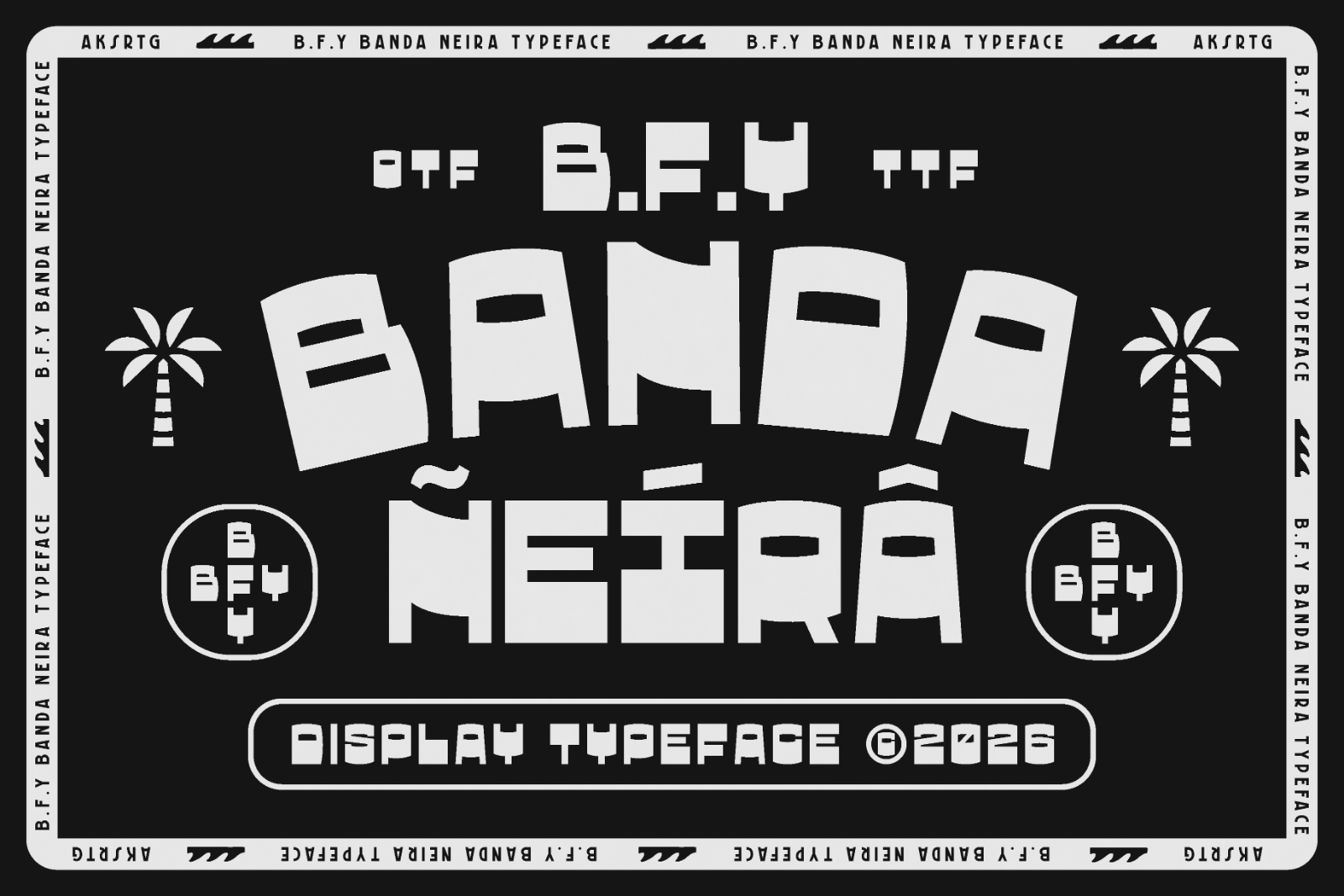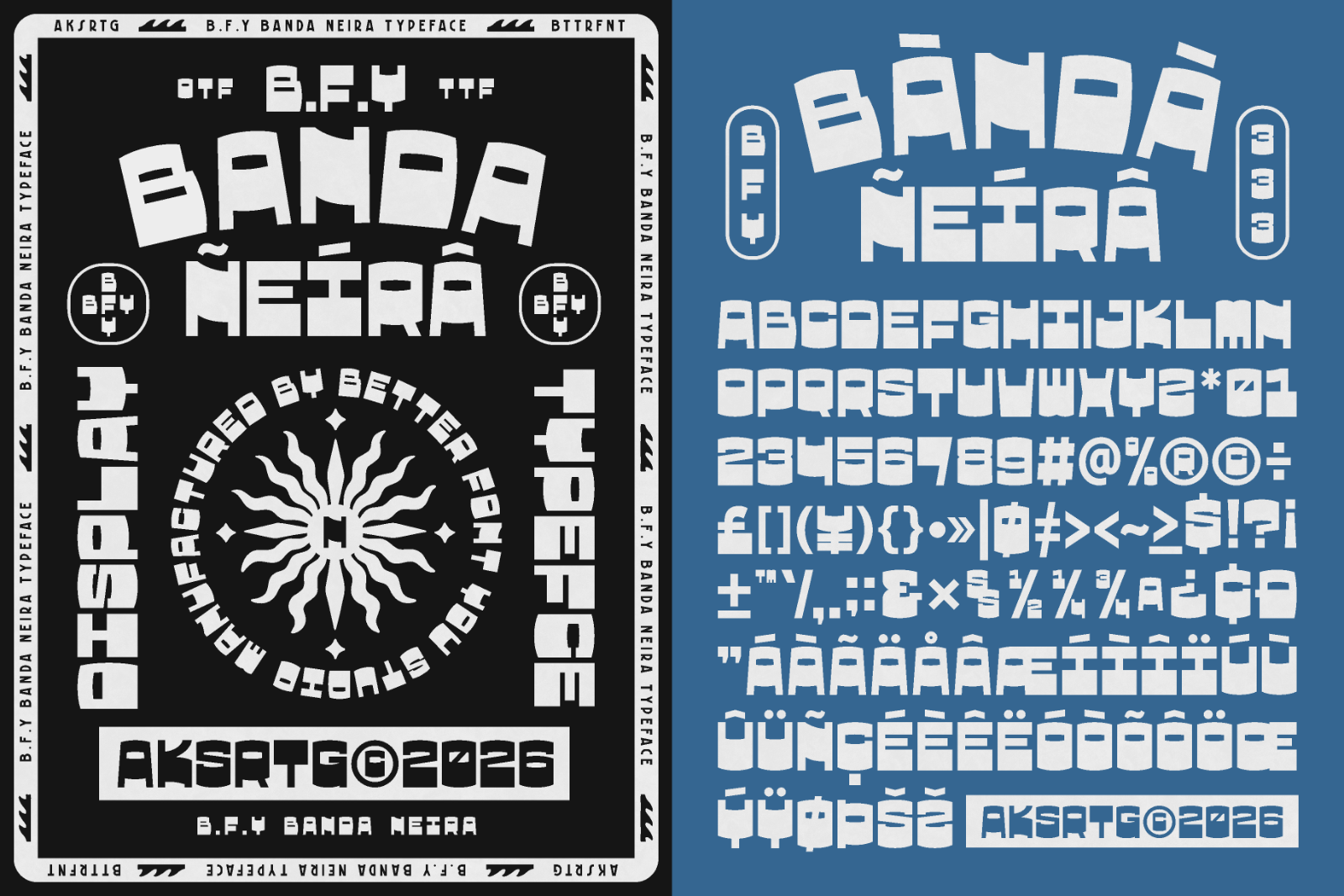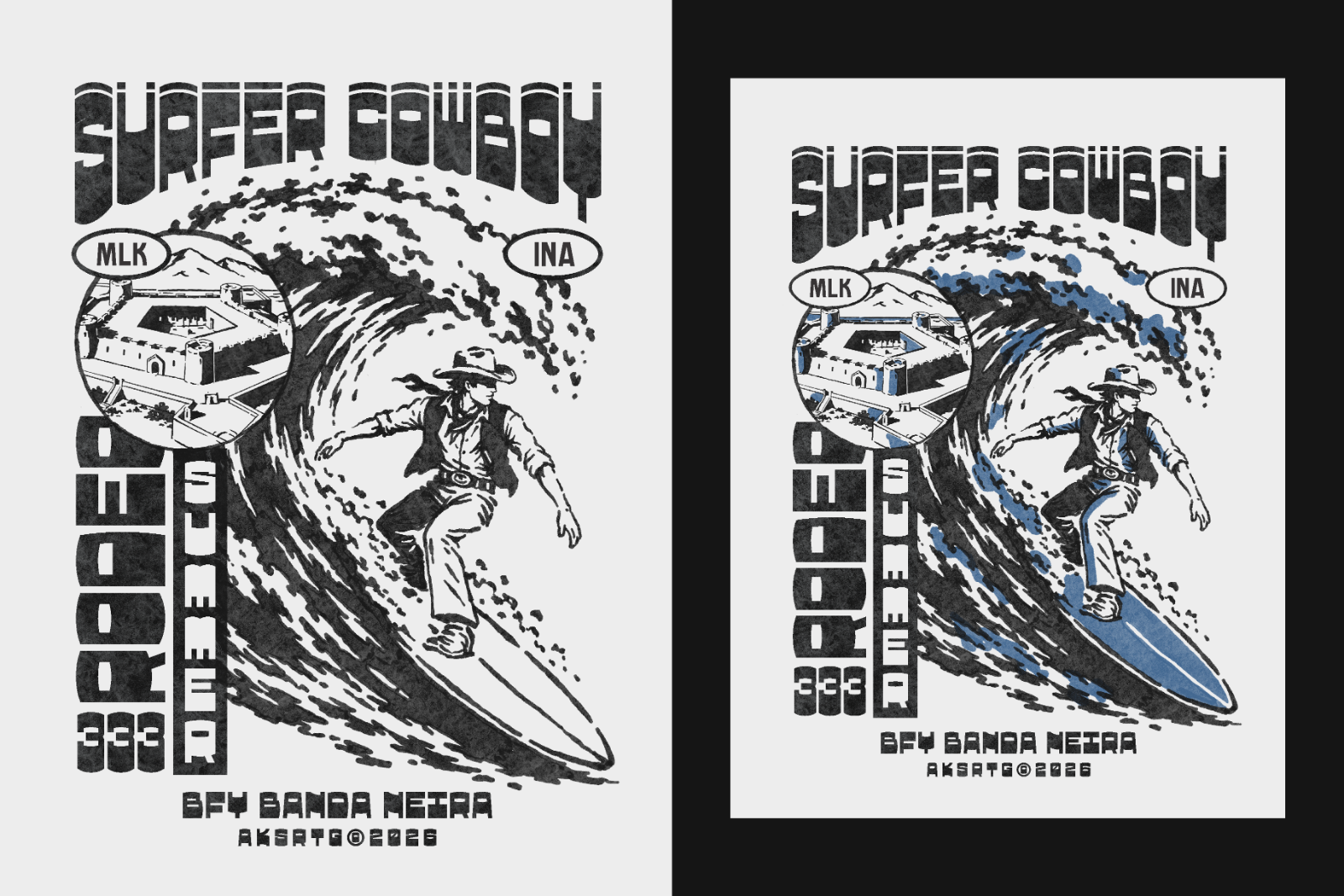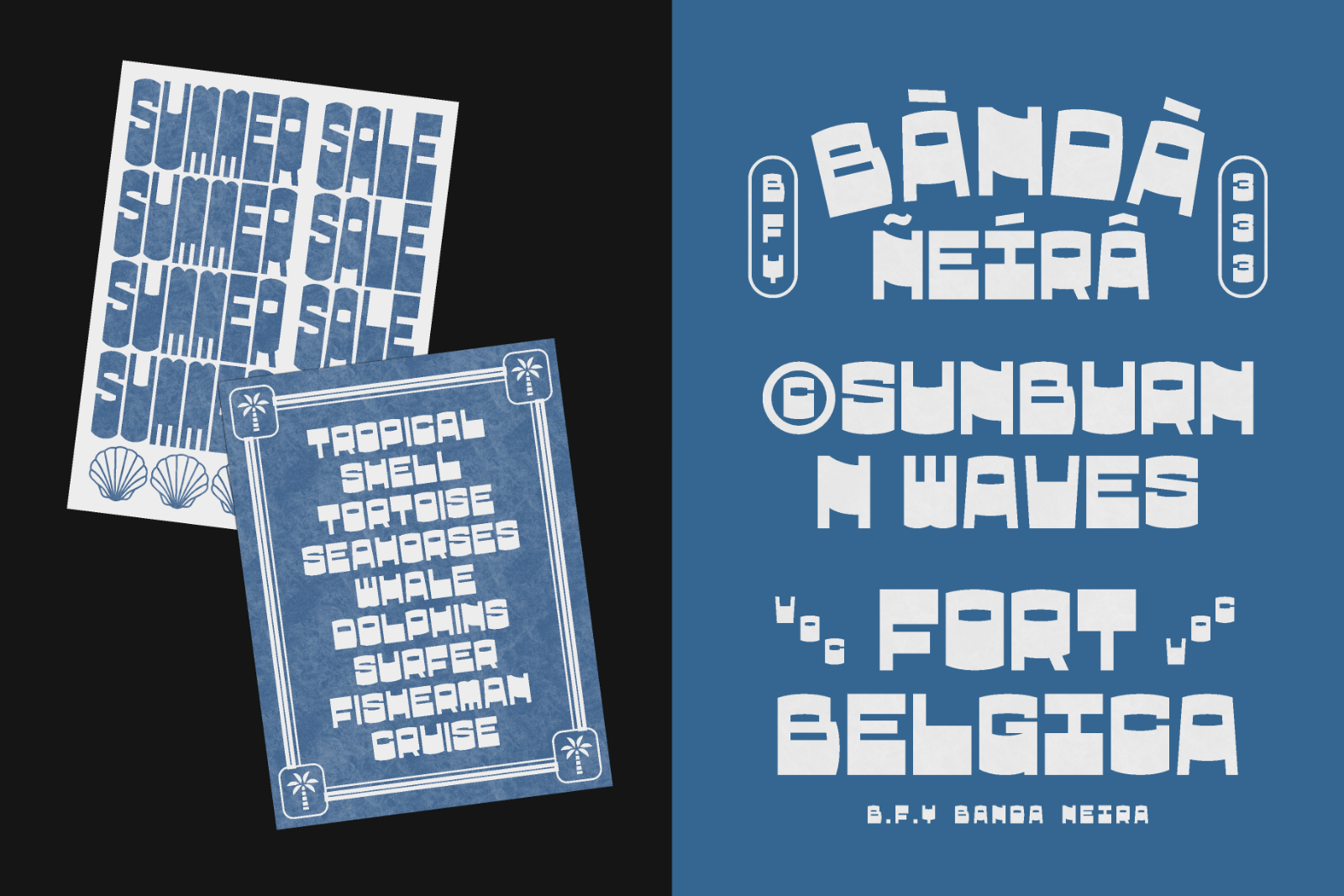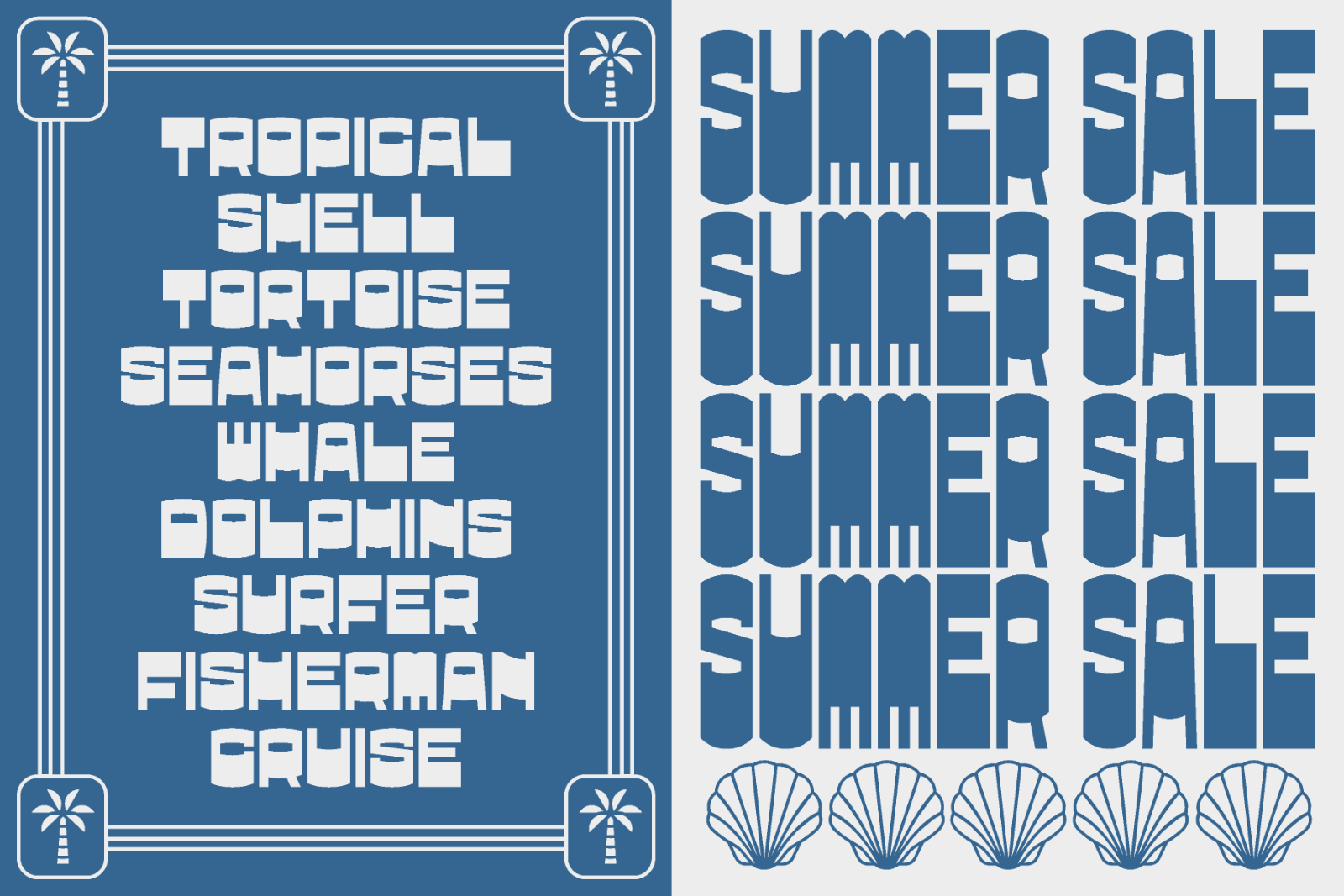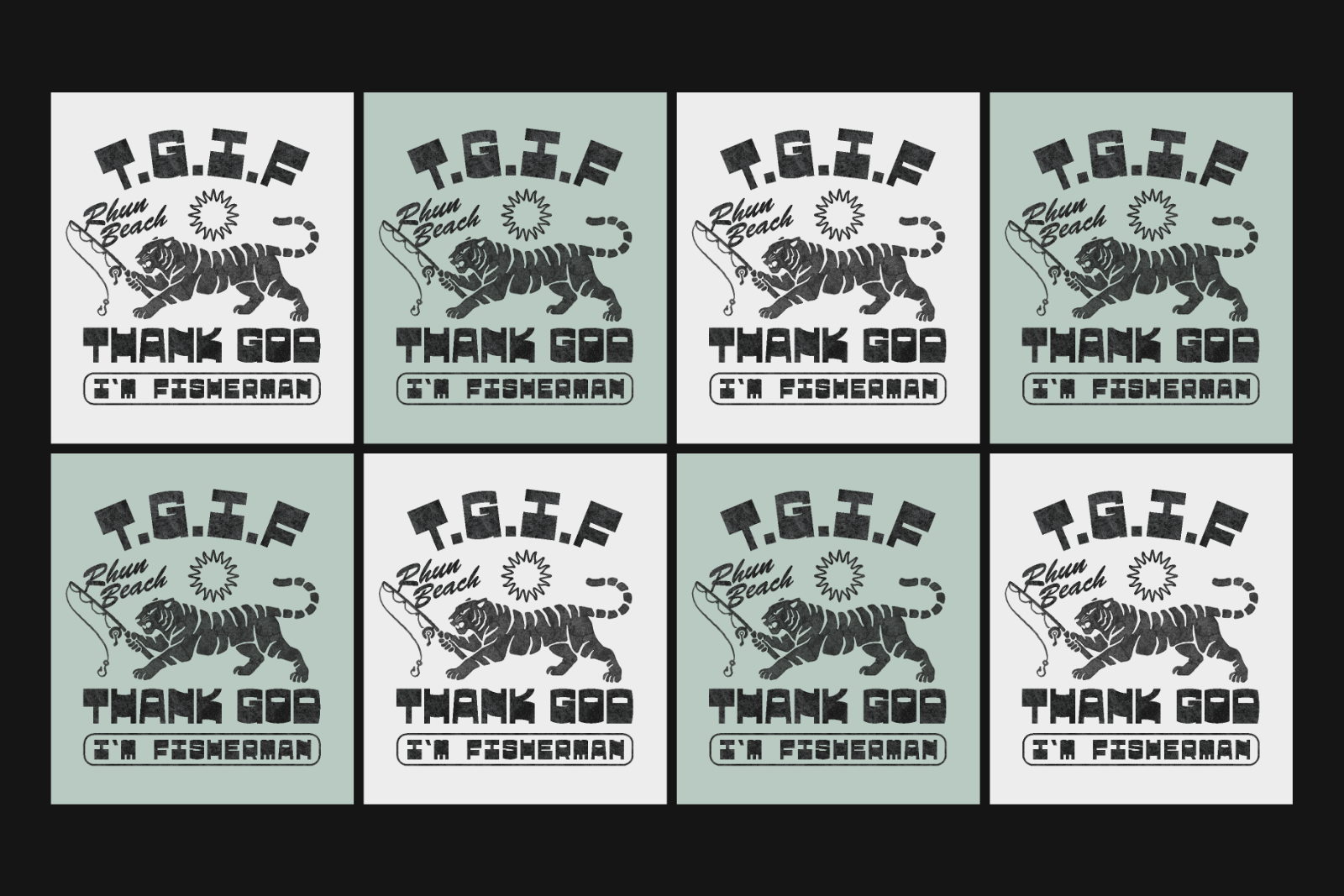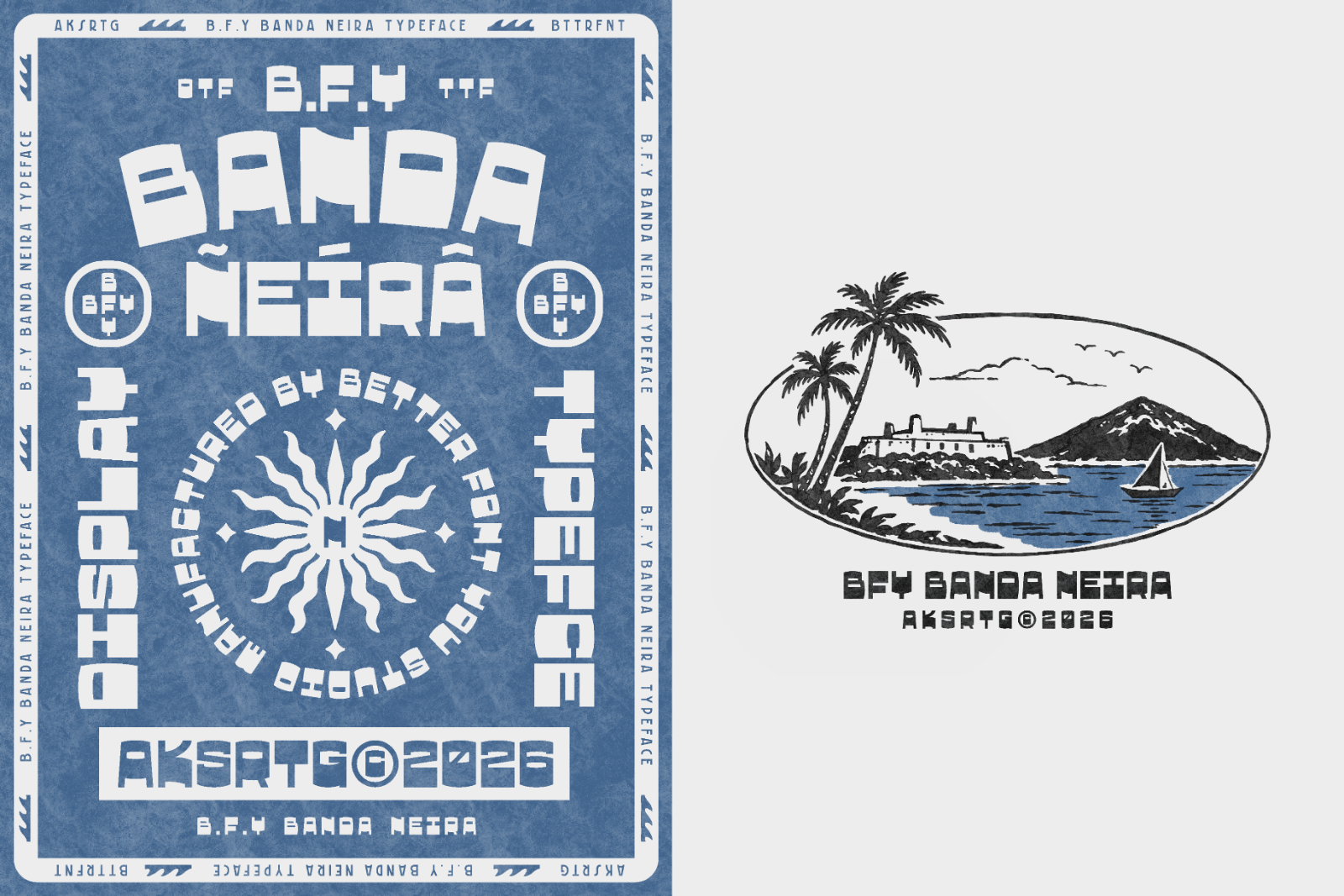
BFY Banda Neira — Retro Display Font
BFY Banda Neira is a retro tropical display typeface by Aksaratiga Studio inspired by the tropical beauty and historical atmosphere of Banda Neira. Featuring unconventional geometric forms, playful proportions, and distinctive details, it combines retro character with a contemporary graphic feel. Perfect for posters, branding, apparel, packaging, editorial design, album covers, and travel-inspired artwork